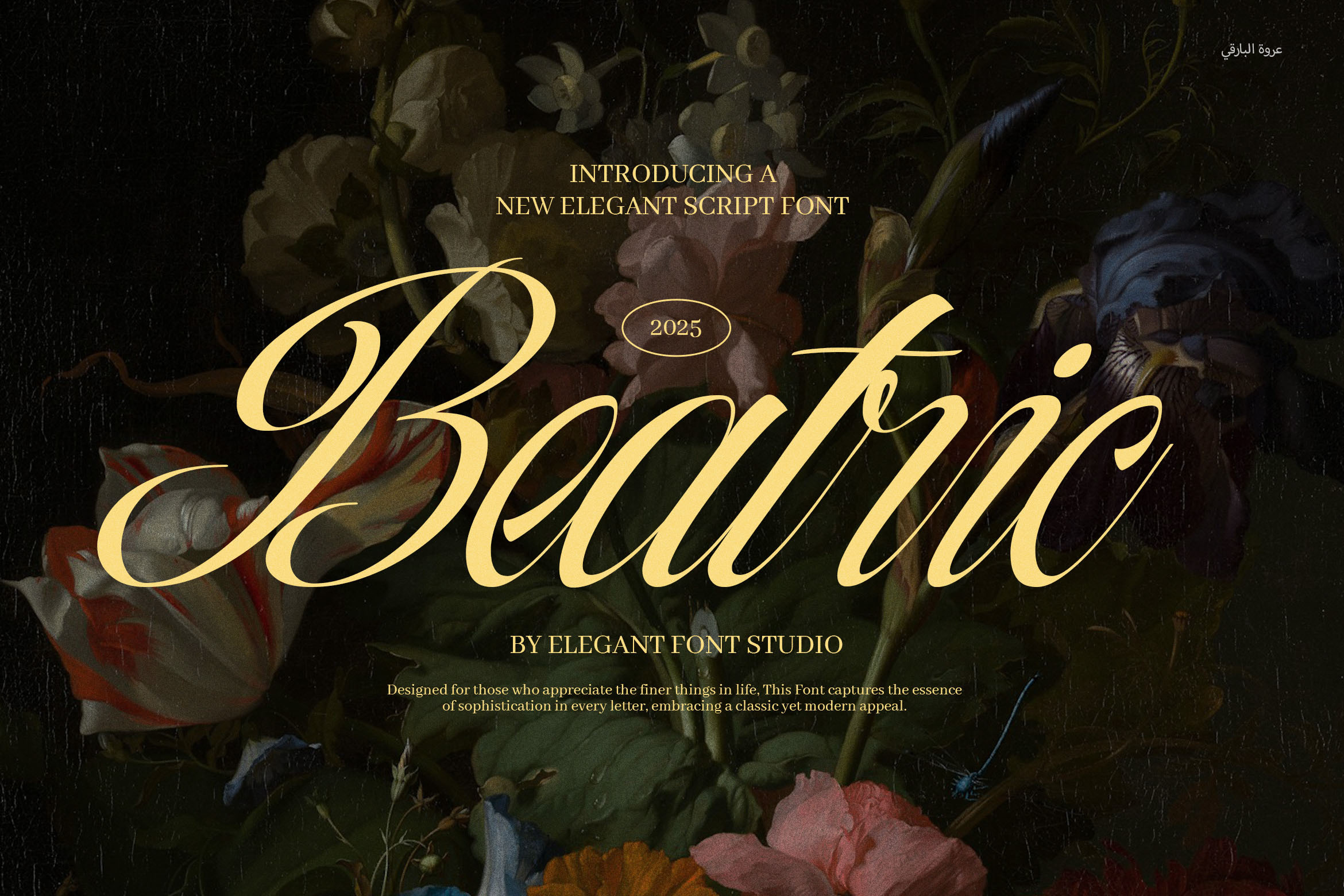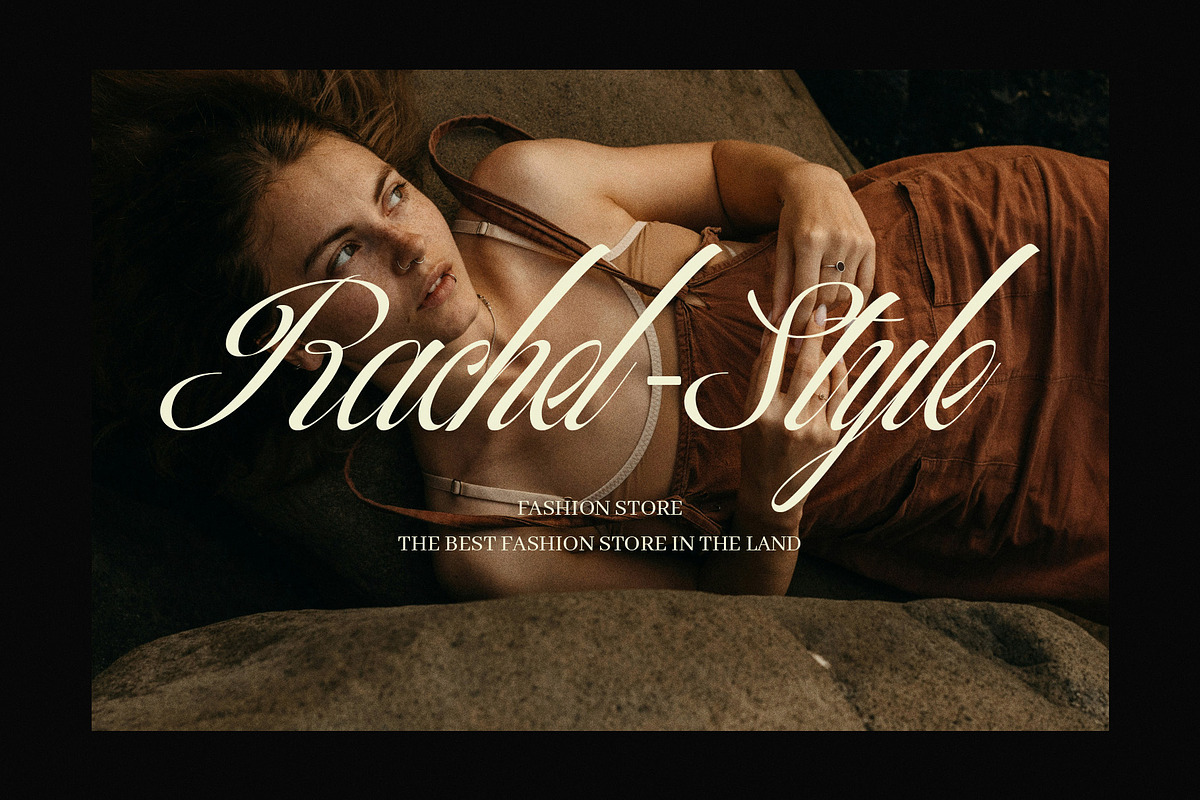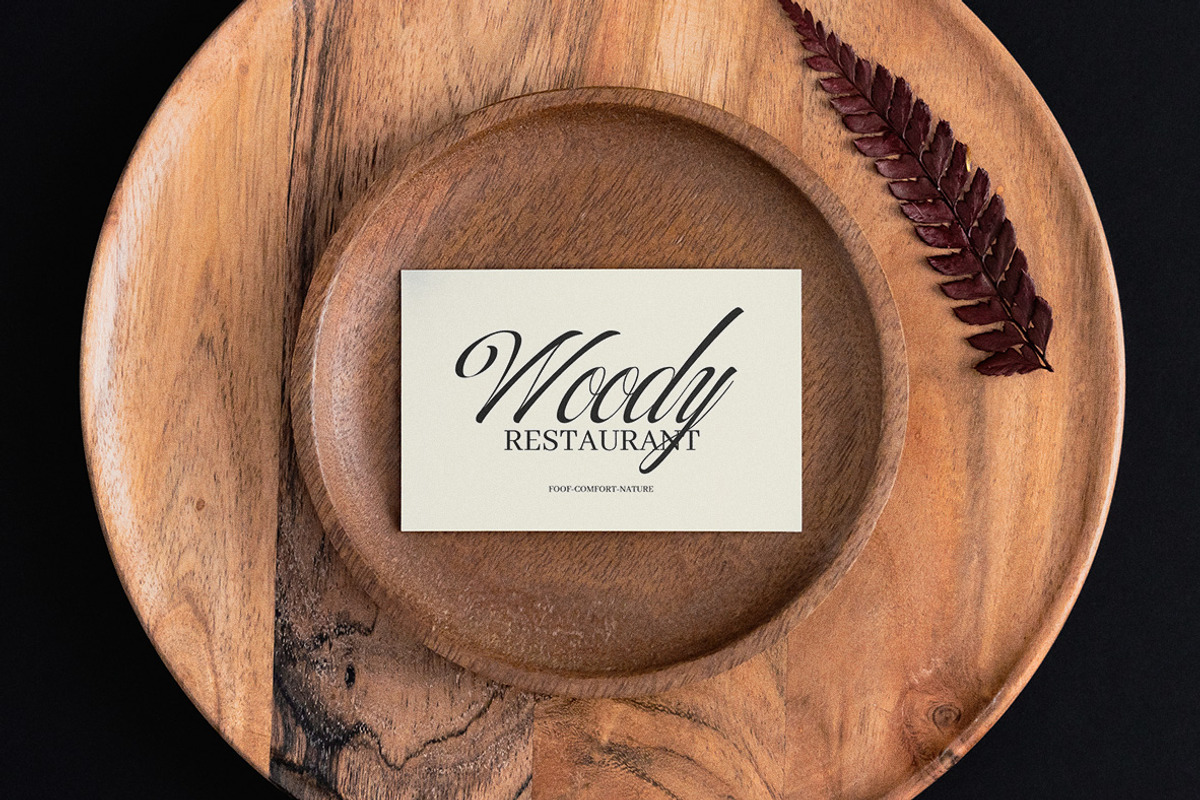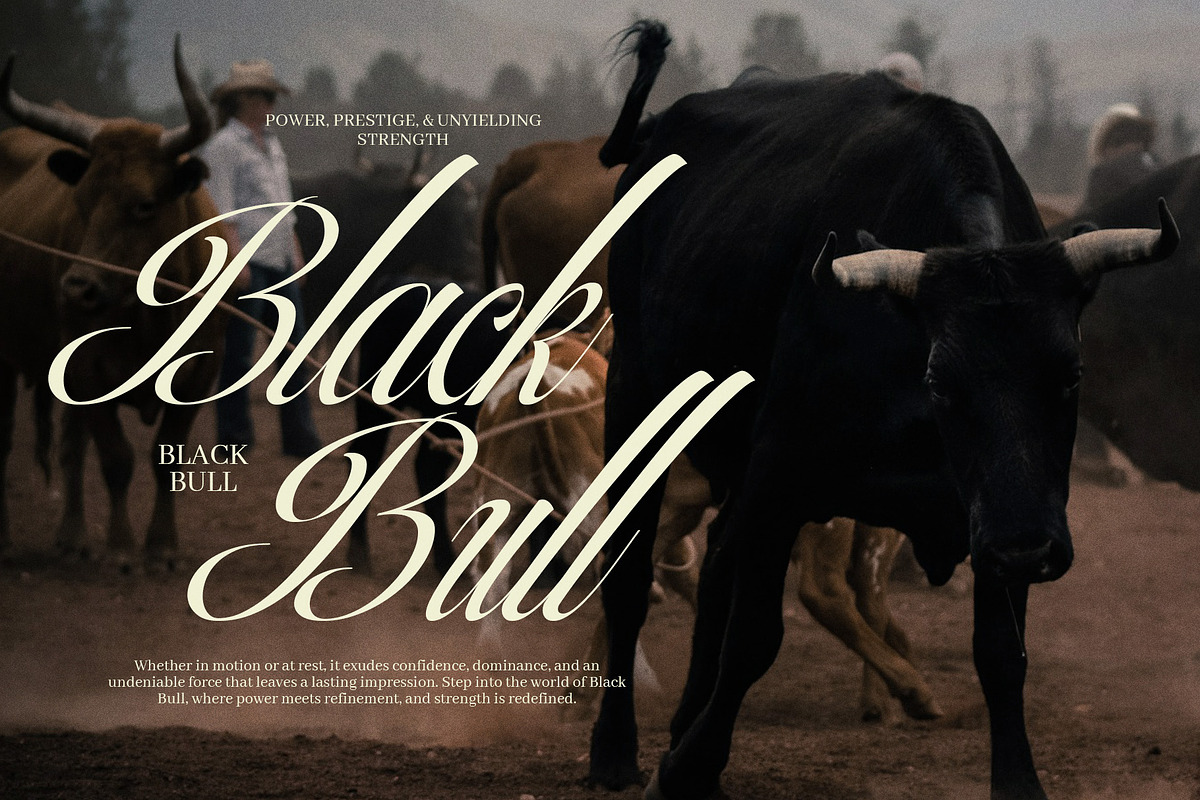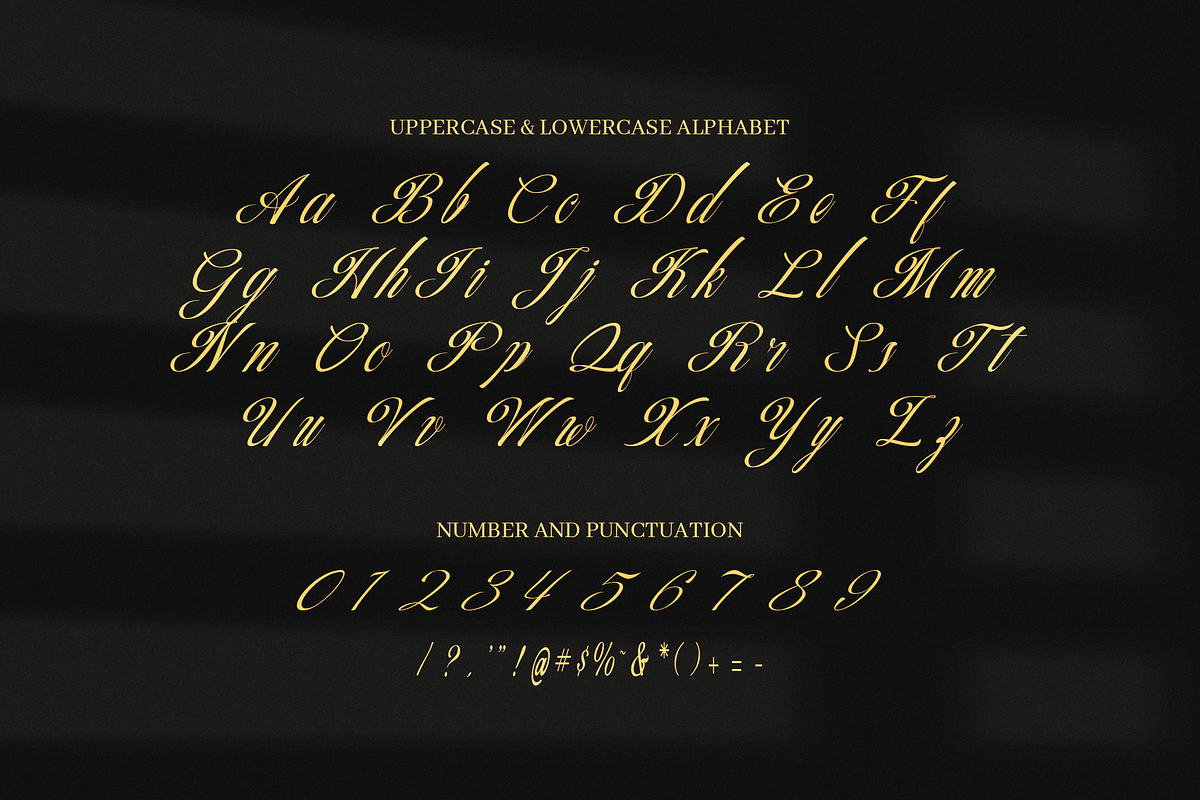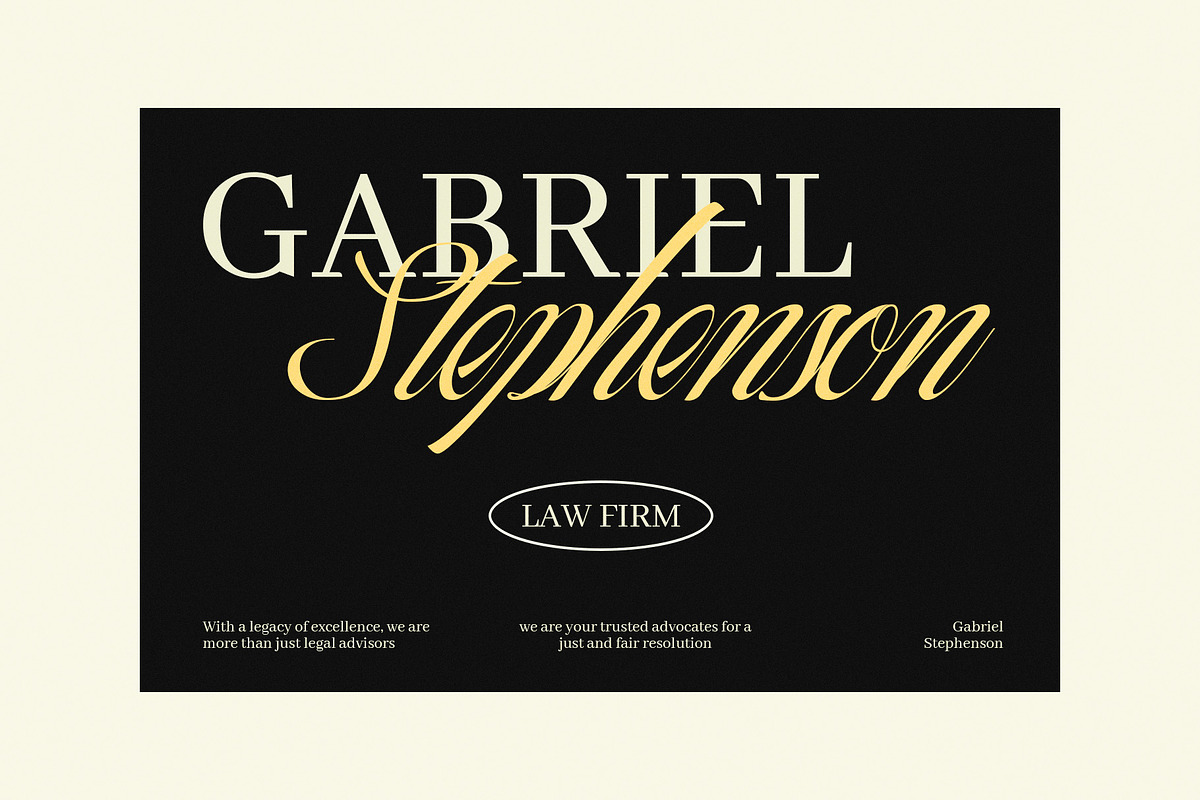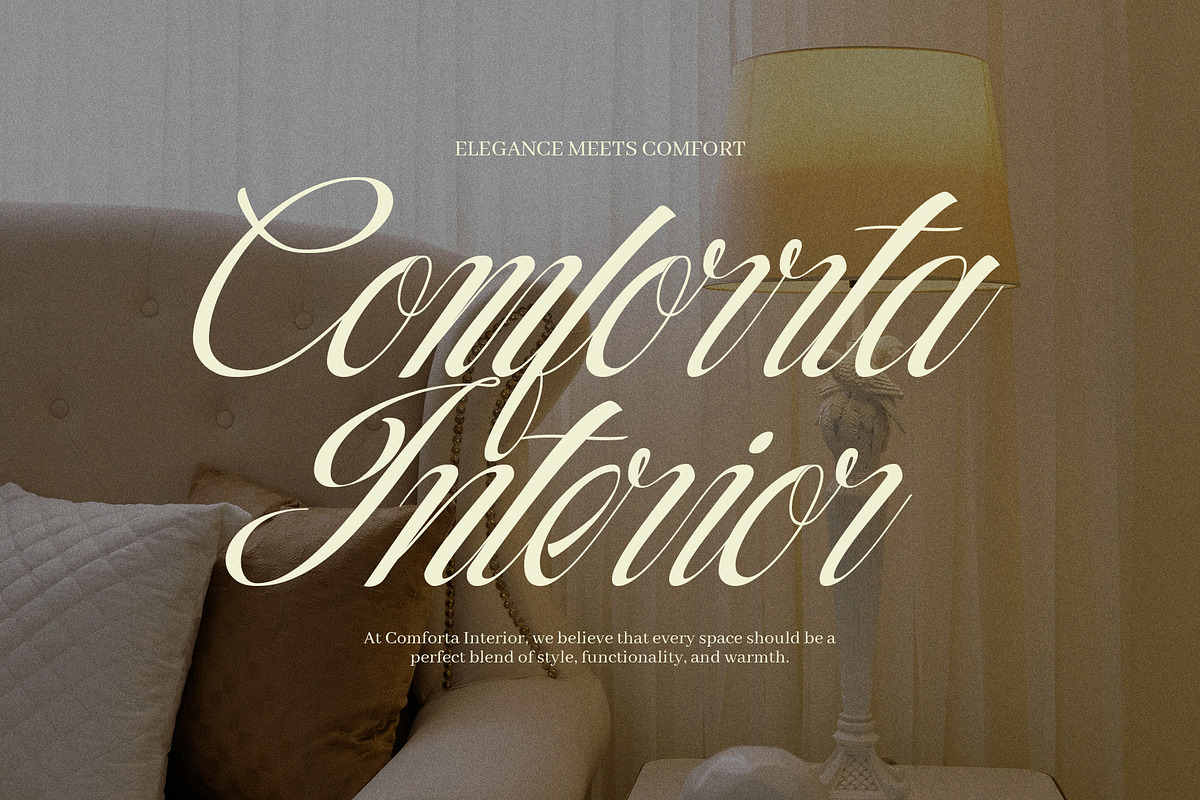
Beatric Elegant Script Font
Beatric Elegant Script Font is a graceful, modern calligraphy typeface that blends timeless elegance with artistic flair. Crafted with smooth curves and flowing strokes, this luxury script font is designed to elevate your creative projects effortlessly. Whether you're working on a branding concept or preparing a wedding invitation, Beatric brings charm, refinement, and a premium look to every design.
This elegant script features a full set of stylish ligatures and alternates, giving you a wide variety of letter combinations for natural and fluid typography. The font is meticulously crafted to ensure versatility, making it ideal for everything from feminine branding to high-end advertising.
✨ Key Features:
Elegant and luxury-inspired script style
Beautiful calligraphic alternates and ligatures
Smooth, fluid curves for refined design work
Multilingual support for global branding
Perfectly balanced for digital and print use
Optimized kerning for professional layout results
Choose Beatric if you're looking for a premium, high-quality script font that represents sophistication, femininity, and timeless class.